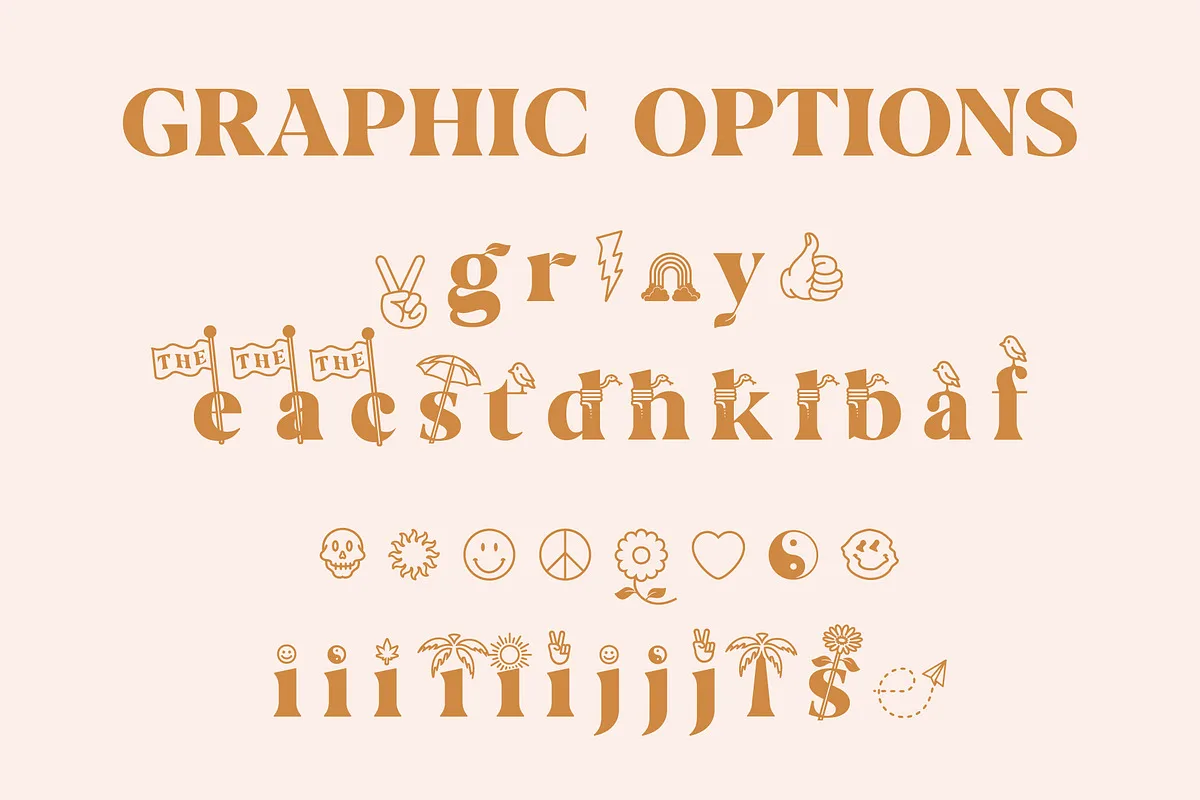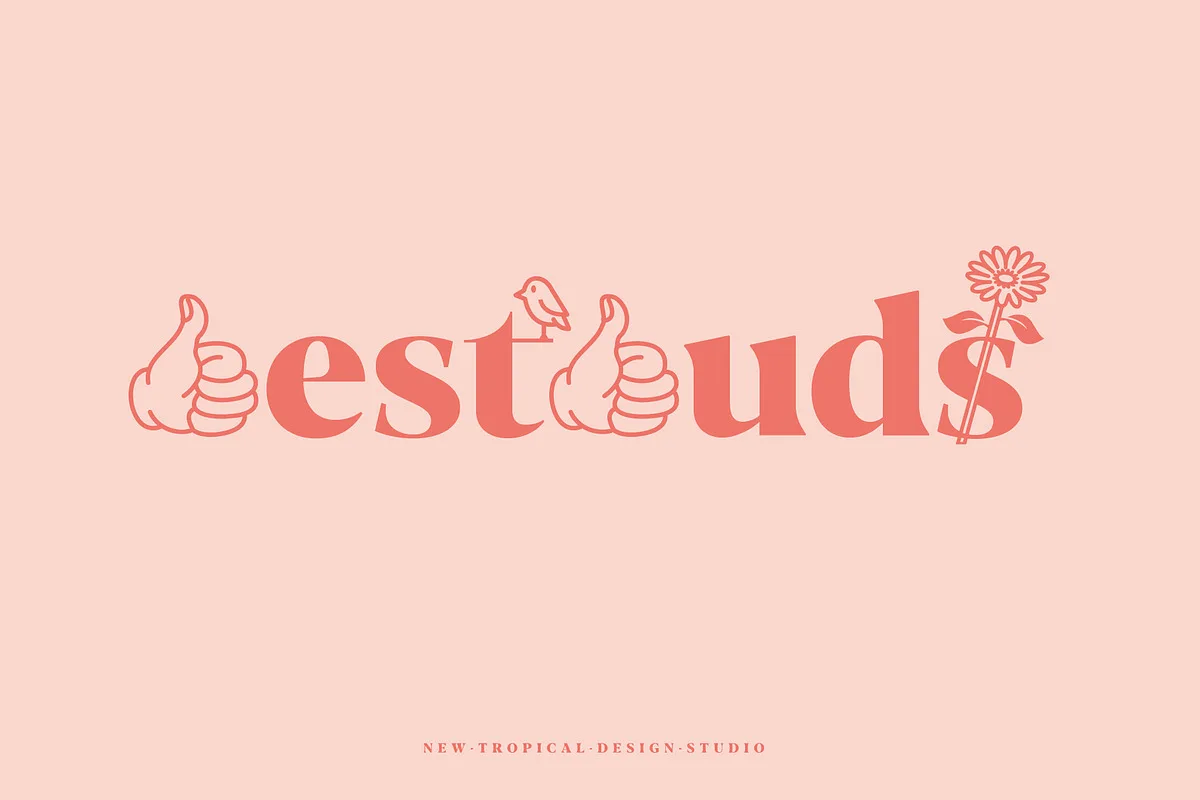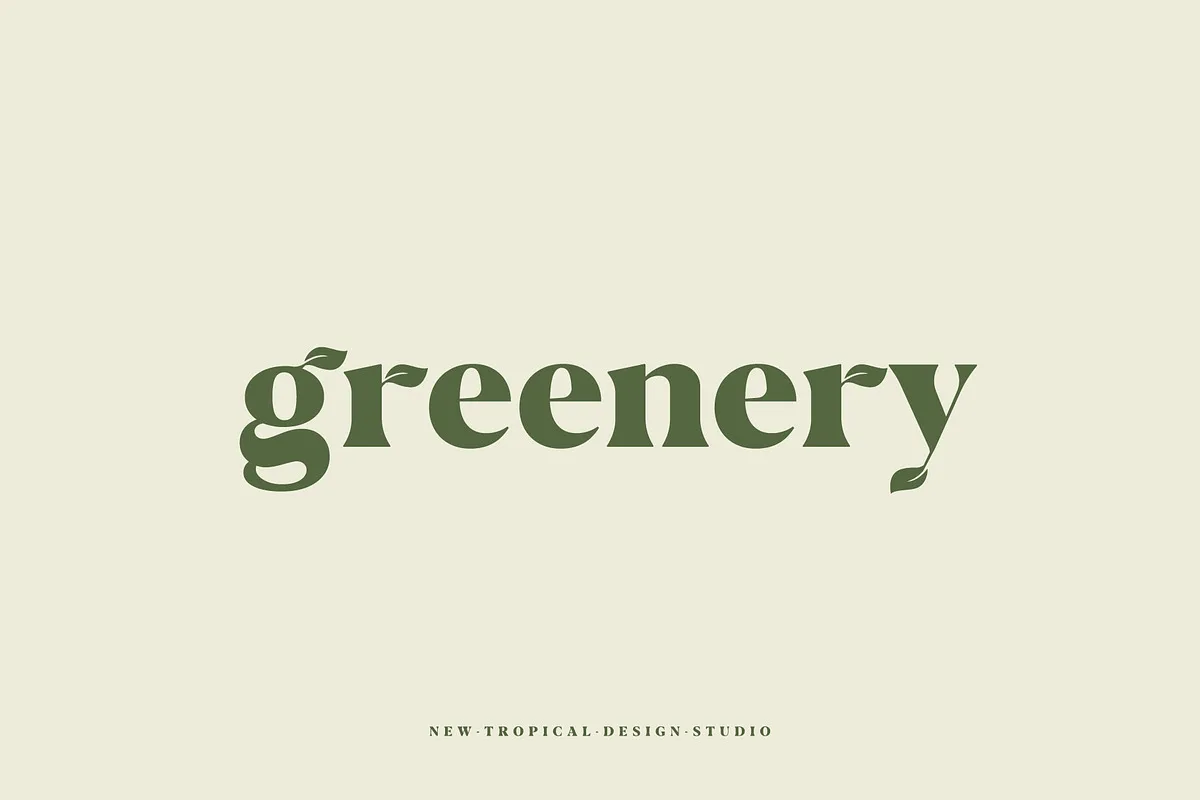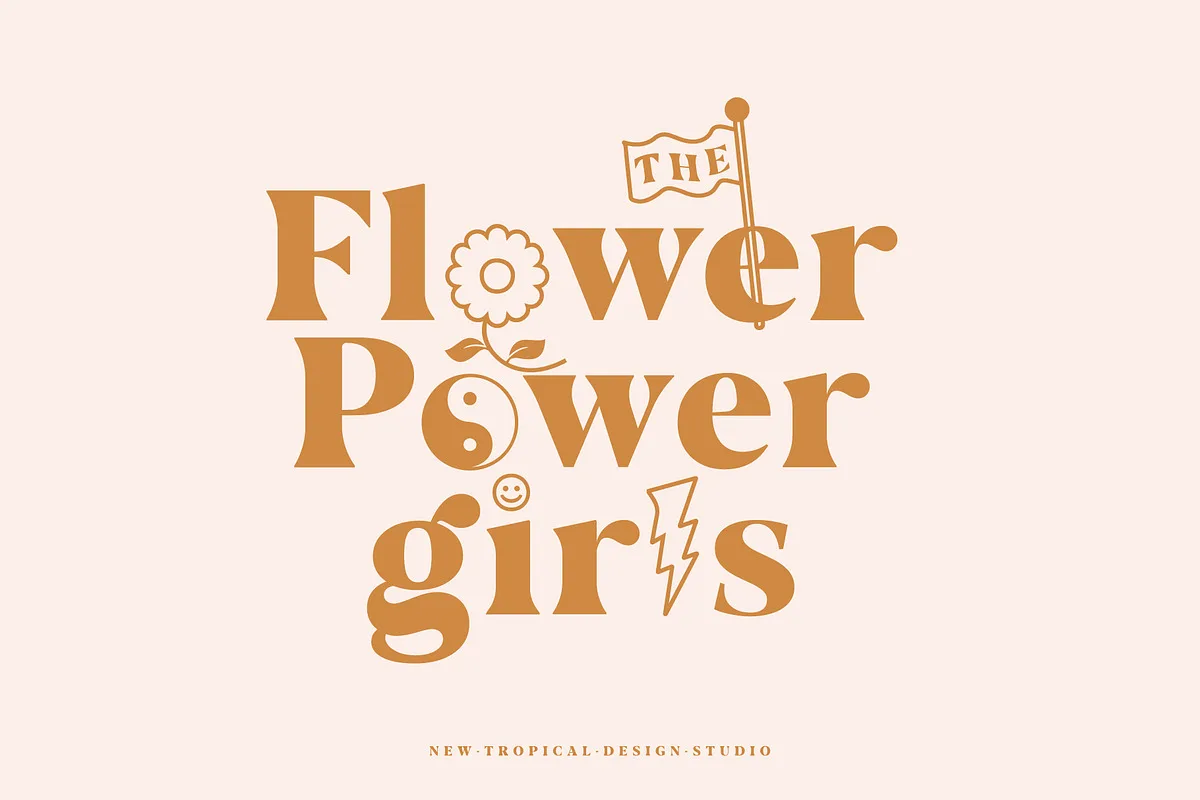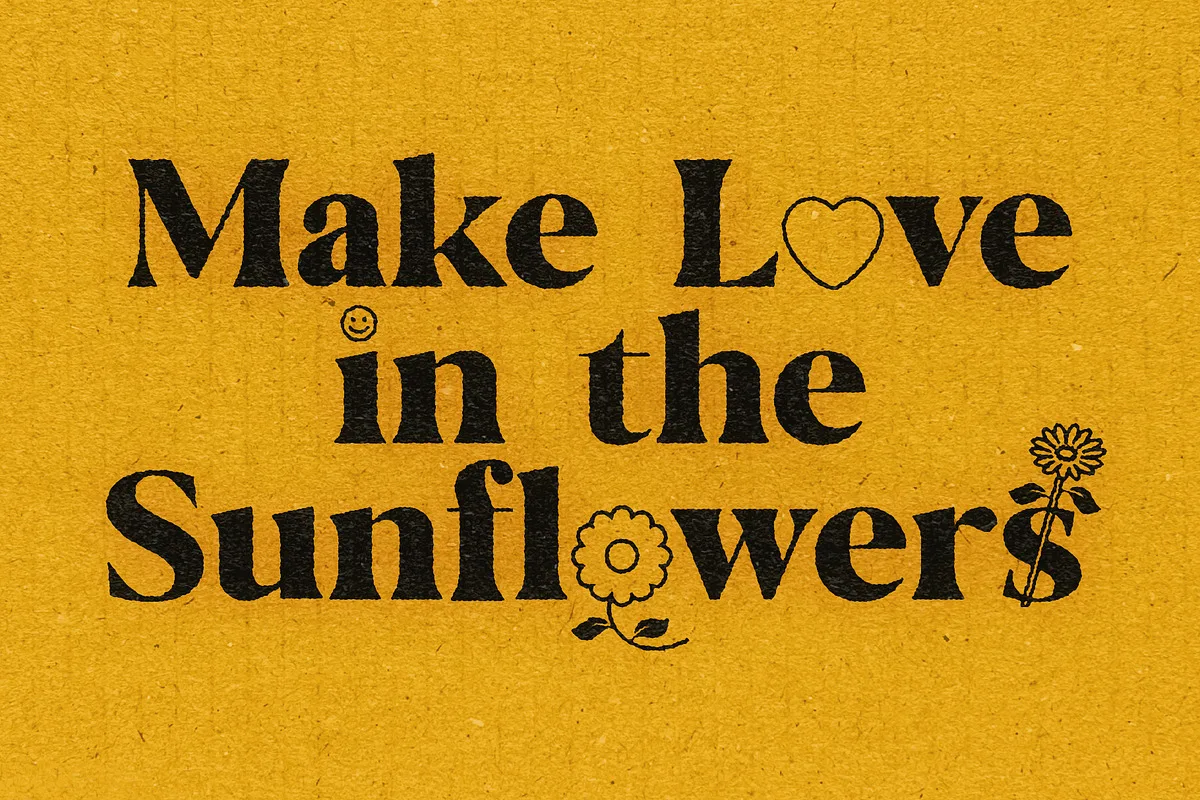
Palm Springs is a one-of-a-kind typeface with built-in graphics. Just type your text and add intertwined graphic letters with a single click. It’s never been easier to get those good vibes and 70s styles.
- Full upper/lowercase, numbers, punctuation and graphic letters
- Multilingual support ( including Polish)